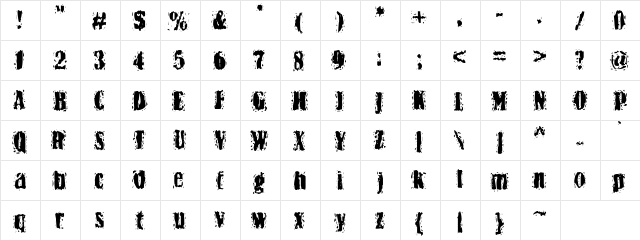
BN-Yiftach Rough Heavy
Design Context for BN-Yiftach Rough Typeface
BN-Yiftach Rough trades polish for personality, using distressed and eroded forms to bring grit and attitude to creative work.
Suited to punk-influenced zines, underground music branding, streetwear, and raw, anti-corporate design.
Pro Tip: Pair BN-Yiftach Rough with intentionally raw or lo-fi design elements. Fighting against it with overly polished surroundings will undermine its personality.